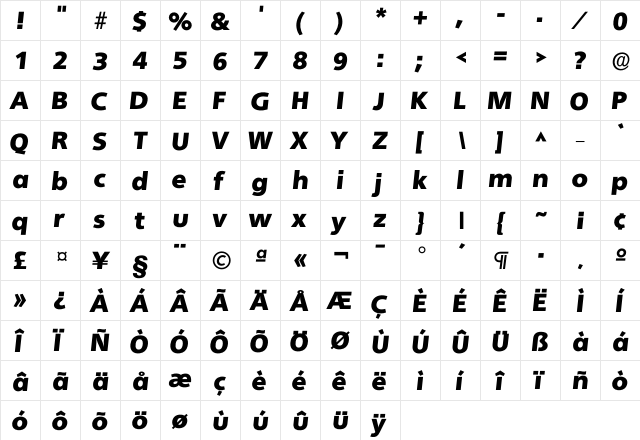
Iquebeck Heavy
Design Context for Iquebeck Typeface
Iquebeck is a composed and adaptable typeface that performs quietly and consistently across a wide range of design contexts.